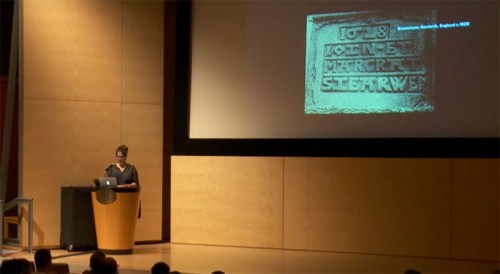
Stanley Morison argues in Politics and Script that the nineteenth-century invention of the sans serif lowercase was no less than ‘the most novel and permanent contribution to letter-design that has appeared on the printed page since the Aldine Italic of 1501’. Given that the sans serif has become the dominant typographic form of the past century (for all but lengthy text setting, and sometimes even for that too), it is more than a little surprising that its early development in the century prior — from a brutish all-caps poster style into a viable upper- and lowercase text style — has scarcely been studied or documented. This talk will trace its evolution as uncovered to date by a primary-source research project in progress.